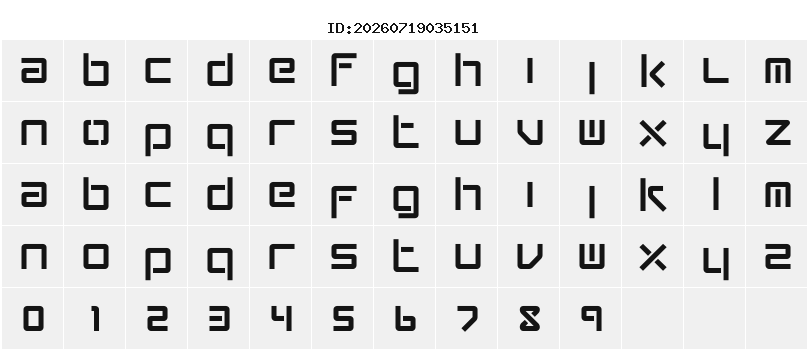
Conradi Preview
• Font Name: Conradi
• Full Font Name: Conradi Square
About Conradi.ttf
Conradi.ttf is a modern, elegant sans-serif font designed for ultimate readability and visual harmony. Perfect for branding, headlines, web design, and print materials.